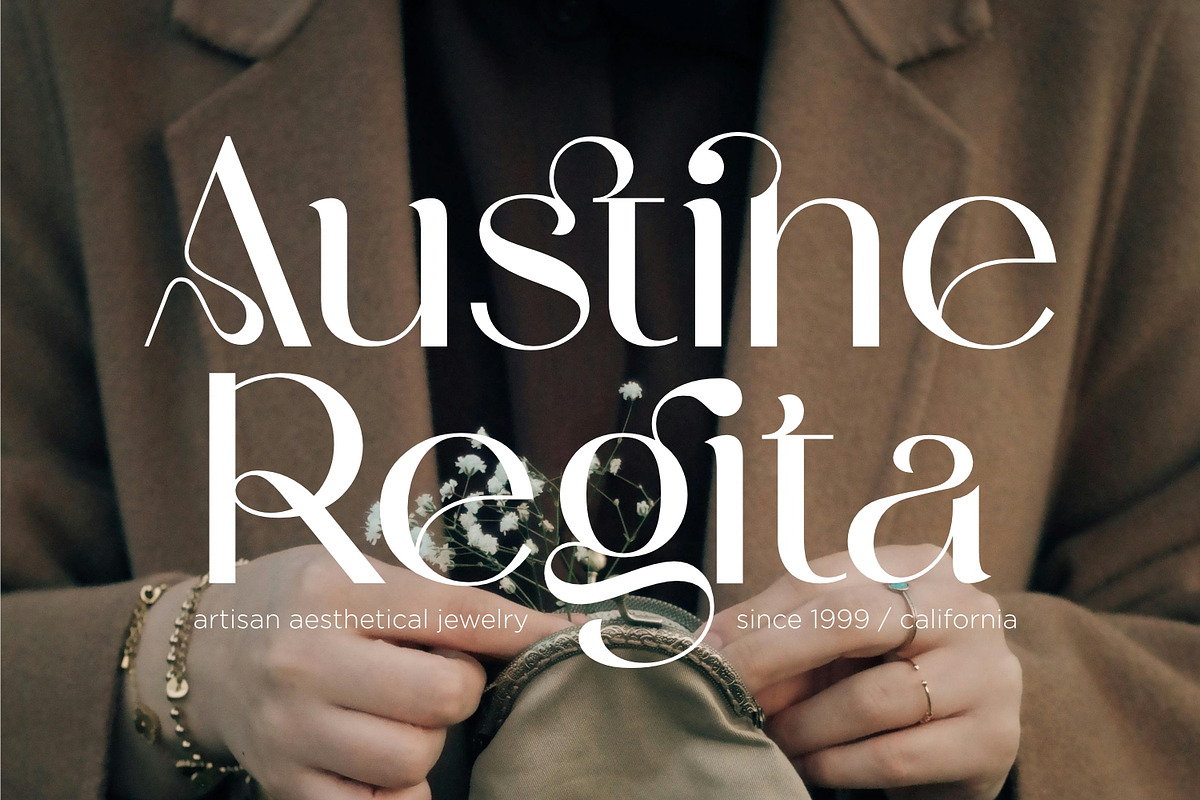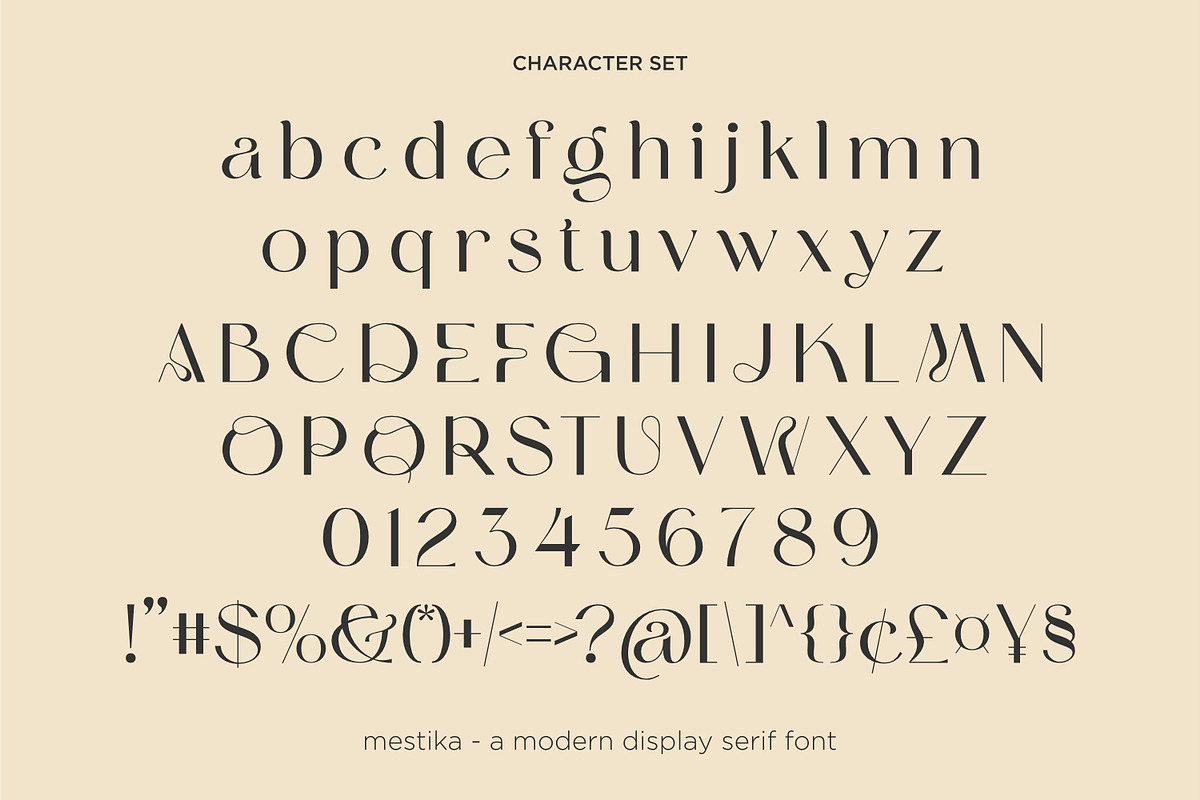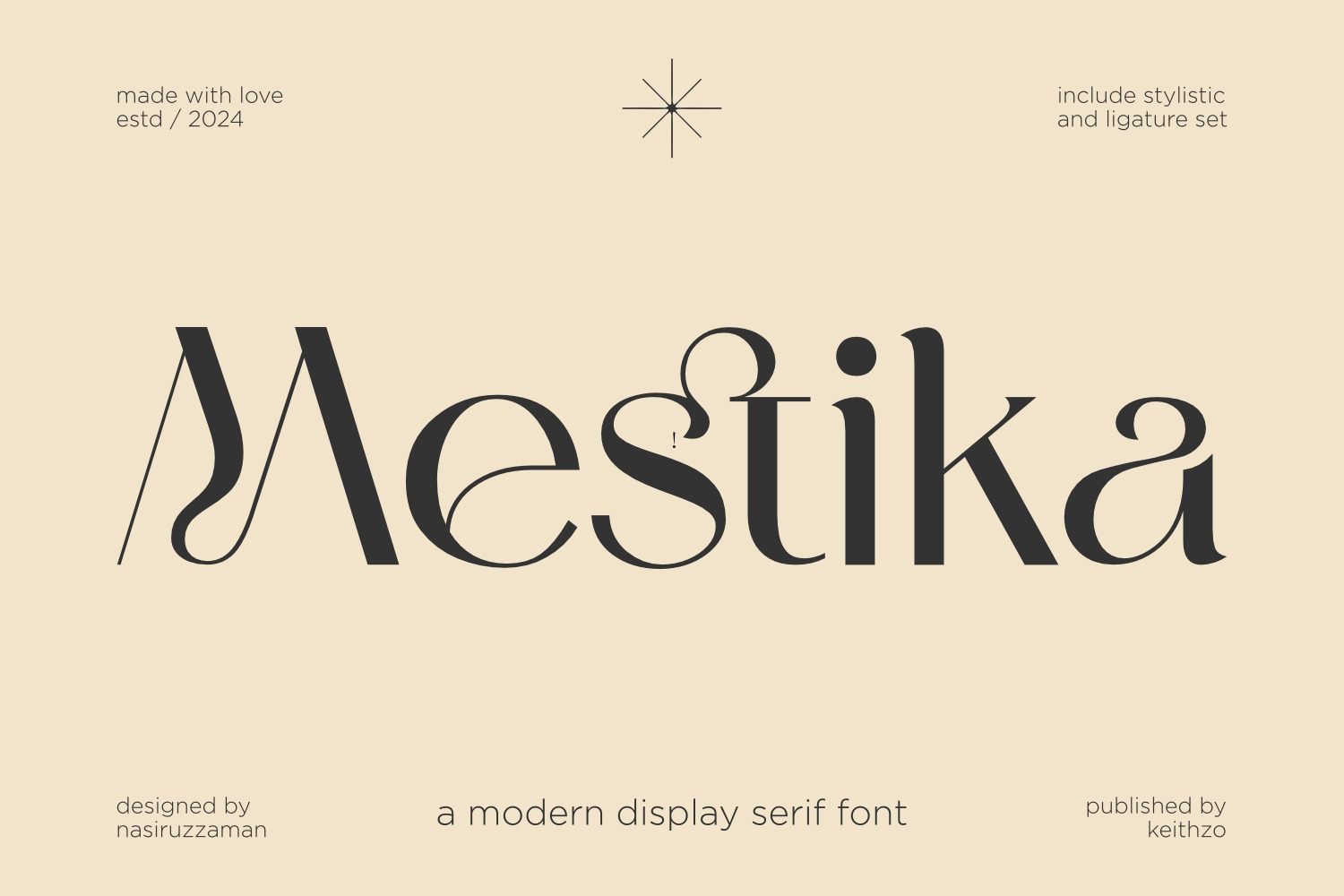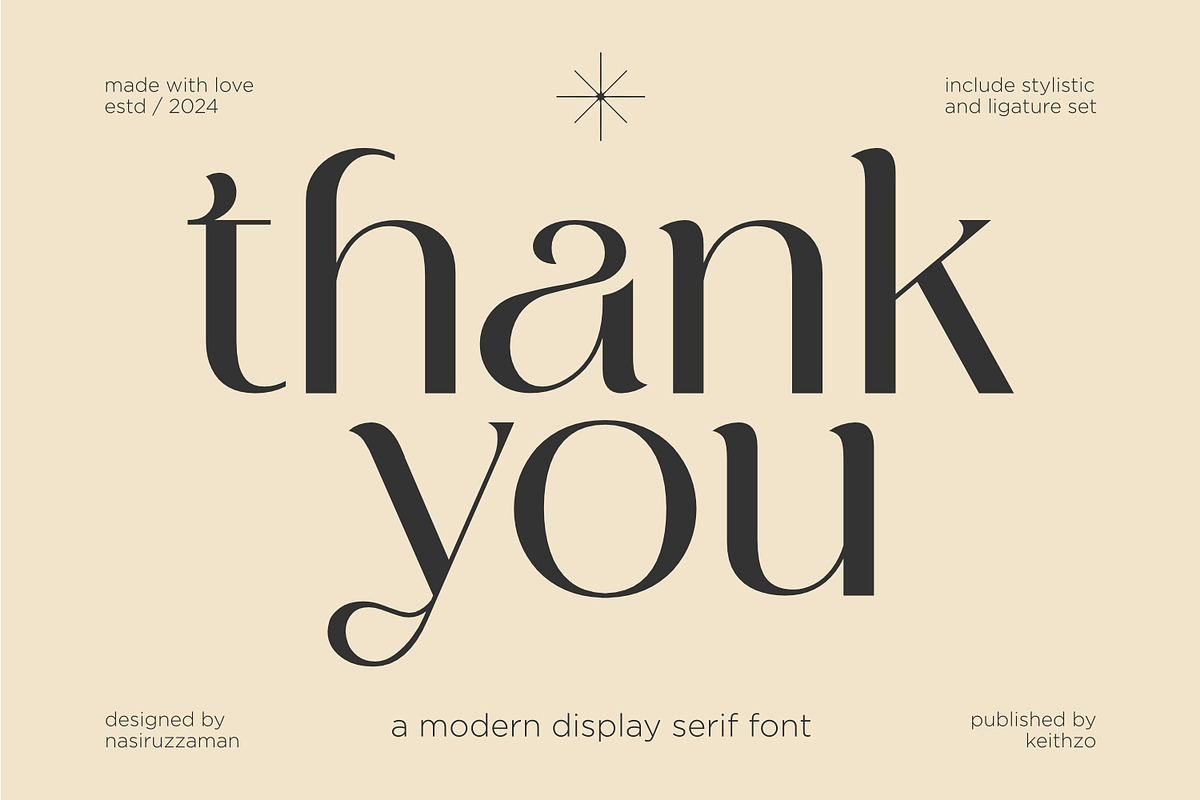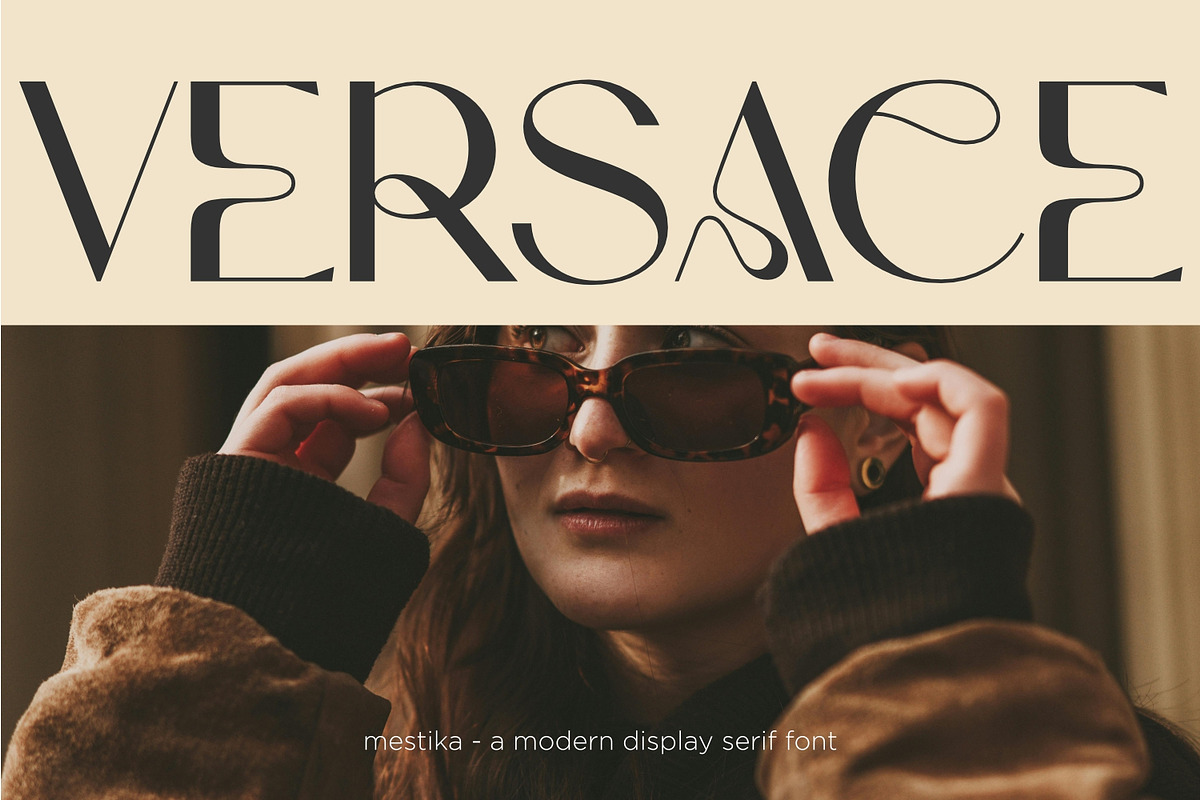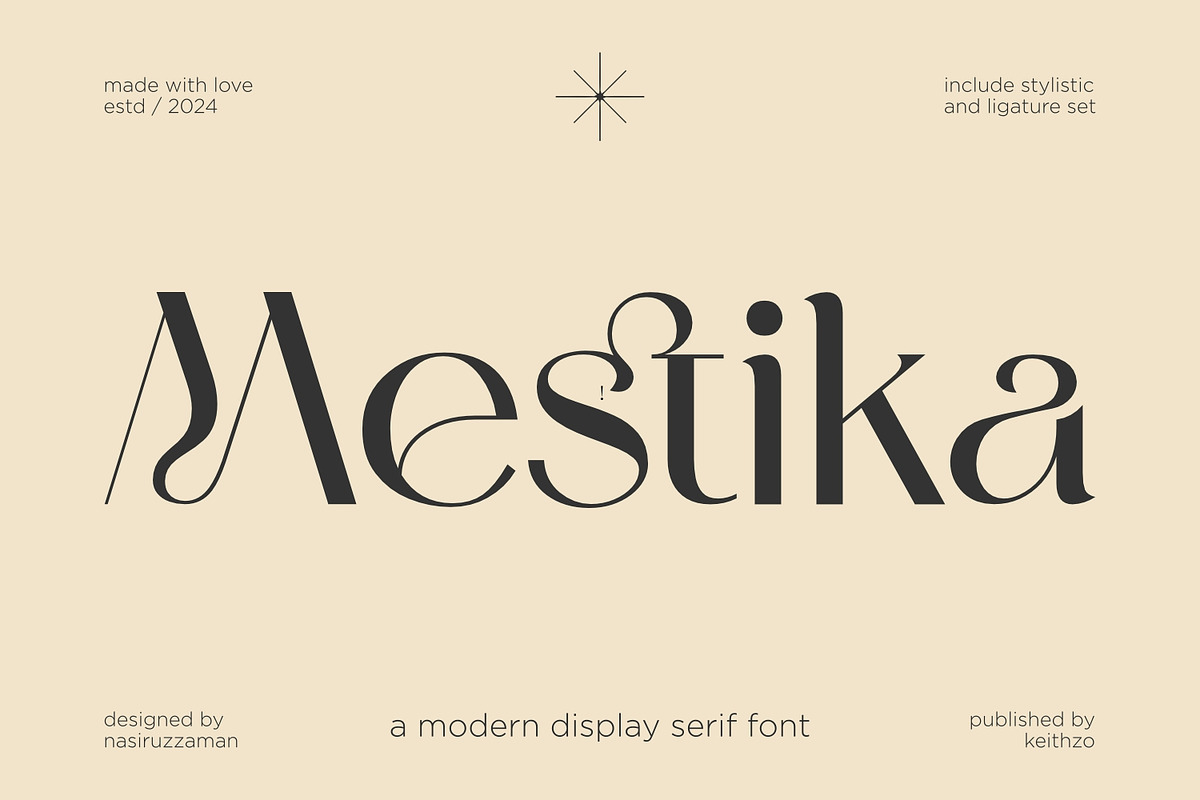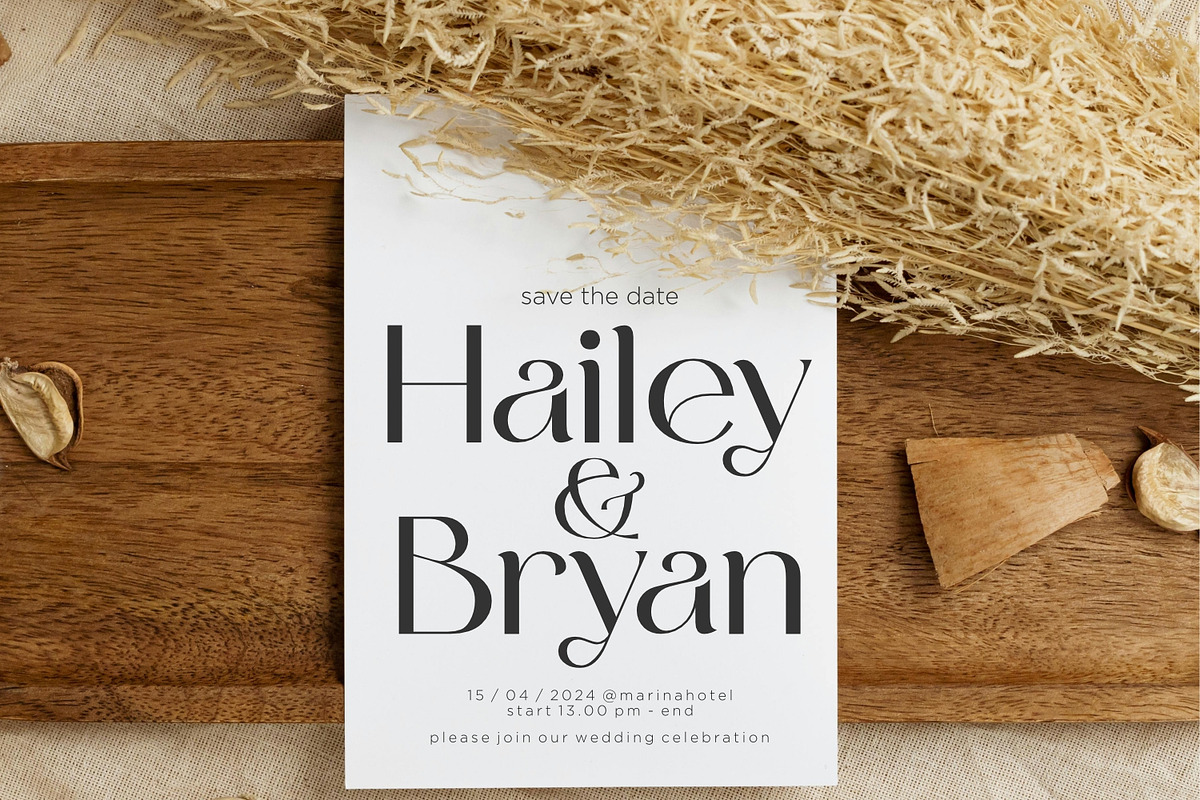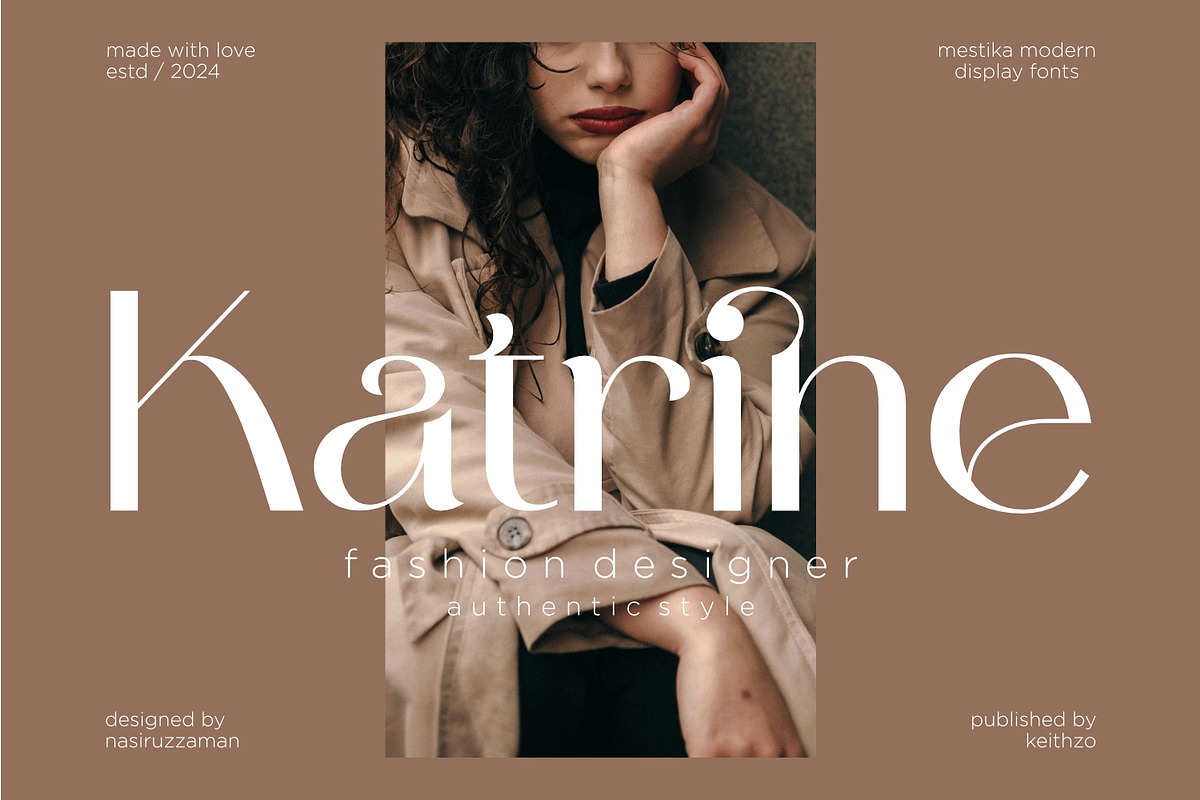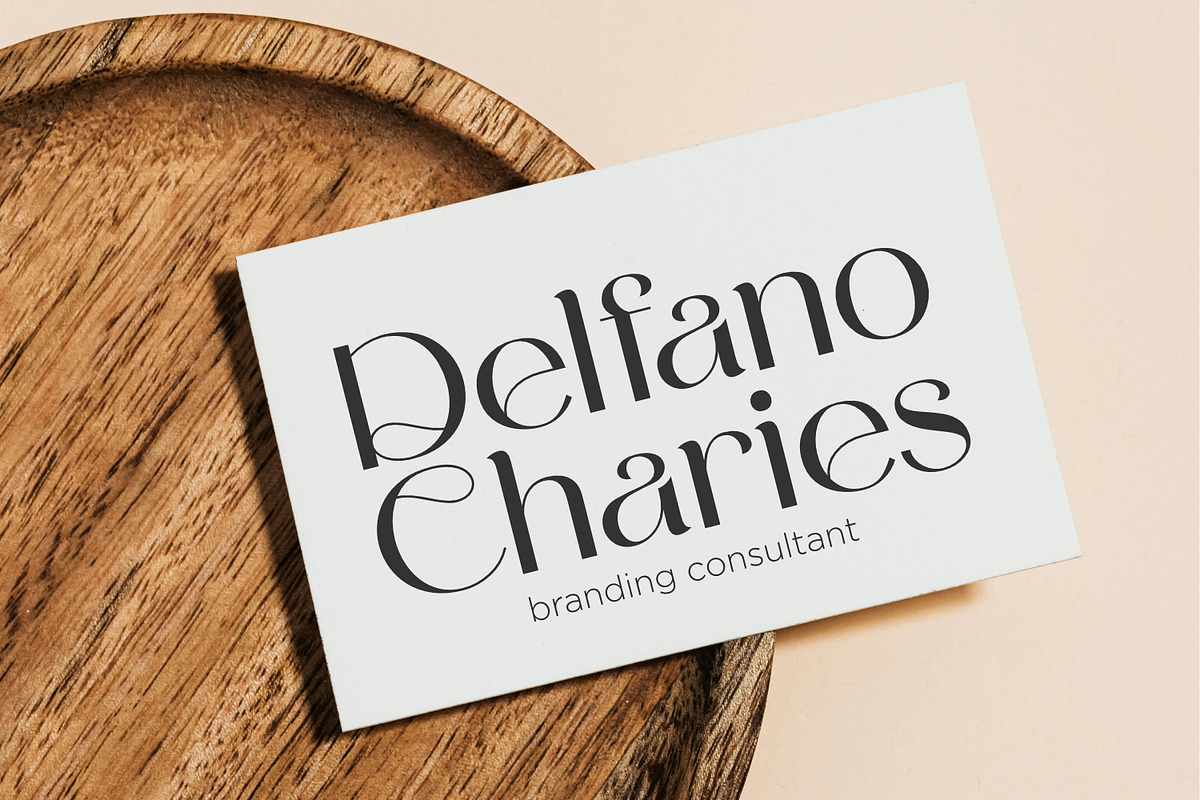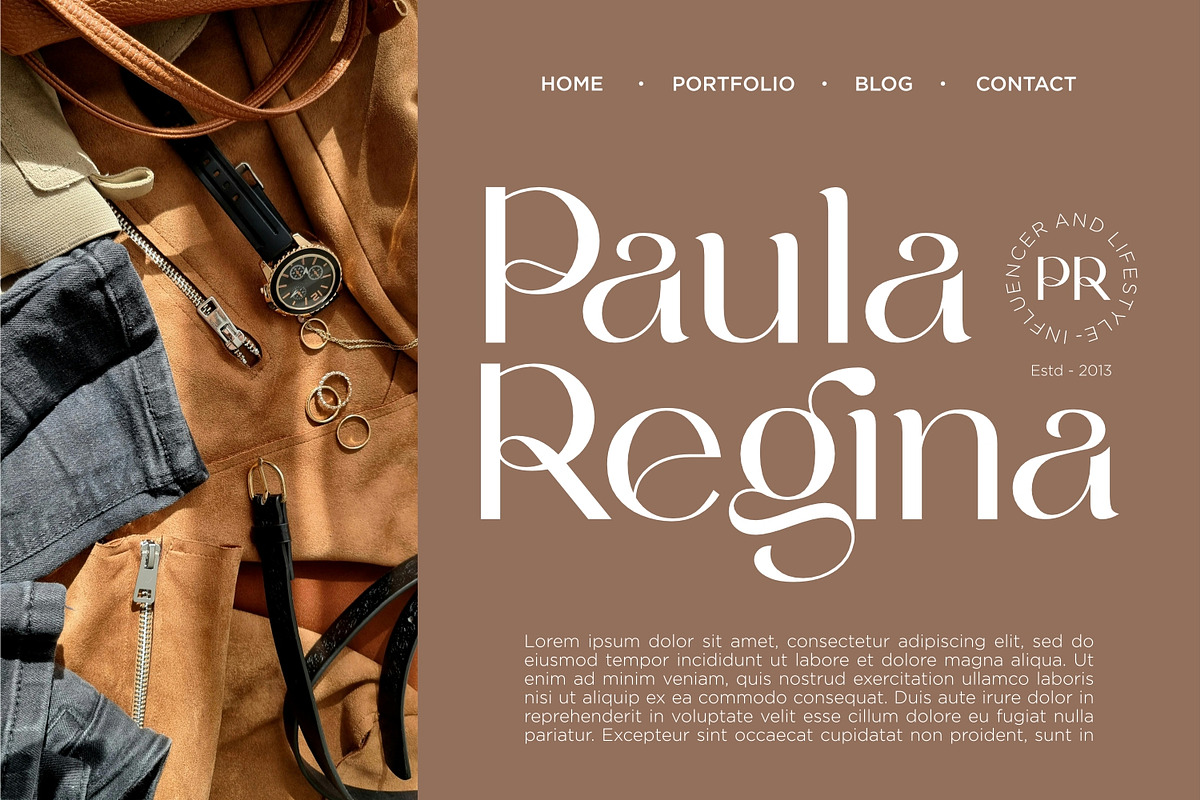
Mestika - Elegant Display Font
Mestika is a classy and modern serif display font that captivates with its streamlined strokes and polished bends. Its cultured distinction infuses a touch of sophistication to an array of design ventures, ranging from editorial schemes to branding assets. This typeface is the essence of modern elegance, designed to communicate a sense of professionalism and contemporary aesthetic, effortlessly enhancing the appeal of myriad creative projects.